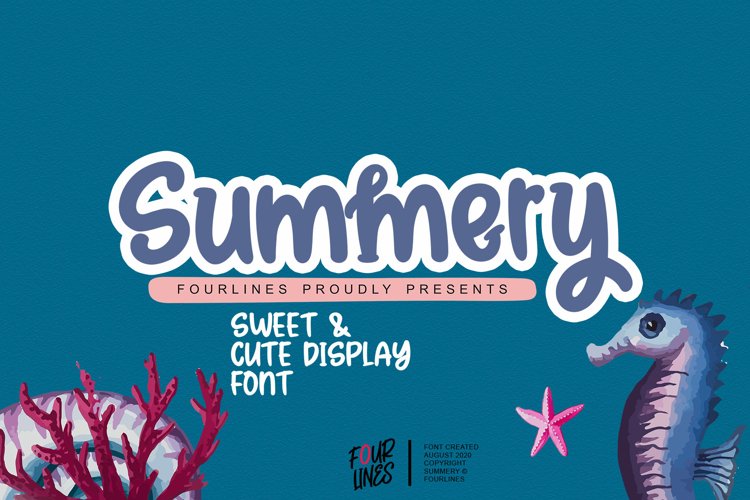
Summery is a sweet and cute display font. It will add an incredibly joyful touch to your designs. Fall in love with its playful style and use it to create beautiful stationary art, eye-catching social media posts, logo, product packaging, and much more!